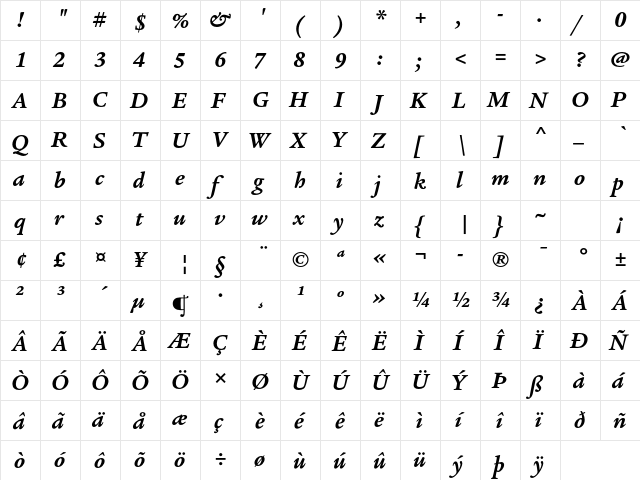
Legacy Serif ITC Std Bold Italic Font Preview
| Designer | Ronald Arnholm |
Design Context for Legacy Serif ITC Std Typeface
Legacy Serif ITC Std carries the refined structure of traditional serif typography, with bracketed terminals and considered proportions that communicate credibility and craft. Its italic angle brings a sense of urgency and motion to the letterforms. Its bold stroke weight gives it real presence on the page.
Pro Tip: Use Legacy Serif ITC Std for editorial body copy and considered headline work. Pair with a neutral sans for UI elements or captions to create a classic hierarchy.